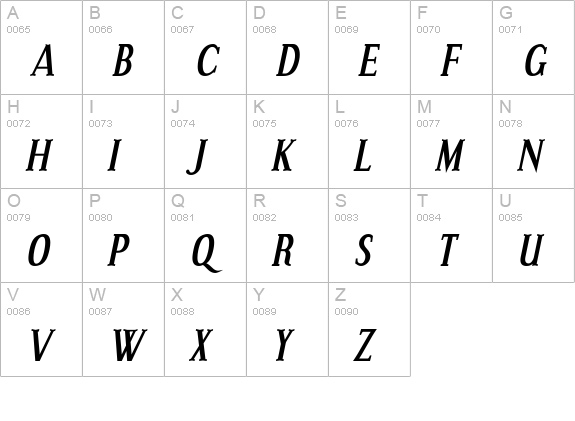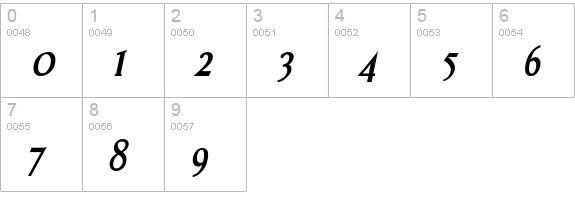
Effloresce Bold Italic is a strong, high-contrast, italic variant in the Effloresce typeface family \xE2\x80\x94 well suited to headlines, attention-grabbing titles, and strong calls-to-action.
Effloresce Bold Italic is a captivating and sophisticated font that exudes elegance and charm. Its distinctive bold and italic design adds a touch of modernity to any project, making it the perfect choice for those seeking a unique and eye-catching typography. Effloresce Bold Italic effortlessly combines strong, bold strokes with graceful, slanted italics, resulting in a harmonious blend of strength and grace. The thick and curvaceous letterforms are meticulously crafted to create a sense of movement and energy, adding a dynamic quality to any text or design. This font is ideal for a wide range of applications, from branding and logo design to editorial layouts and advertising campaigns. Its versatility allows it to seamlessly adapt to different design purposes, effortlessly communicating the desired message and leaving a lasting impression. Effloresce Bold Italic is not only aesthetically pleasing but also highly legible, ensuring that your message is conveyed clearly and effectively. Its balanced and well-proportioned letterforms guarantee readability even at smaller sizes, making it suitable for both print and digital mediums. And the best part is, Effloresce Bold Italic is available for free download at FontsMarket.com. This means that you can easily access and use this stunning font in your creative projects without any financial burden. Whether you are a professional designer or a passionate hobbyist, this font offers you the freedom to unleash your creativity without any limitations. In conclusion, Effloresce Bold Italic is a captivating and versatile font that combines strength and elegance. Its bold and italic design, along with its exceptional legibility, make it an ideal choice for various design applications. And the fact that it is freely available to download at FontsMarket.com further enhances its appeal, making it a must-have addition to your font collection.